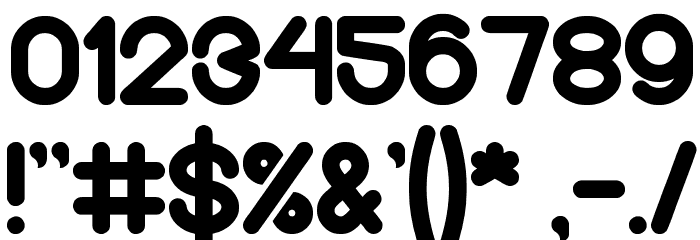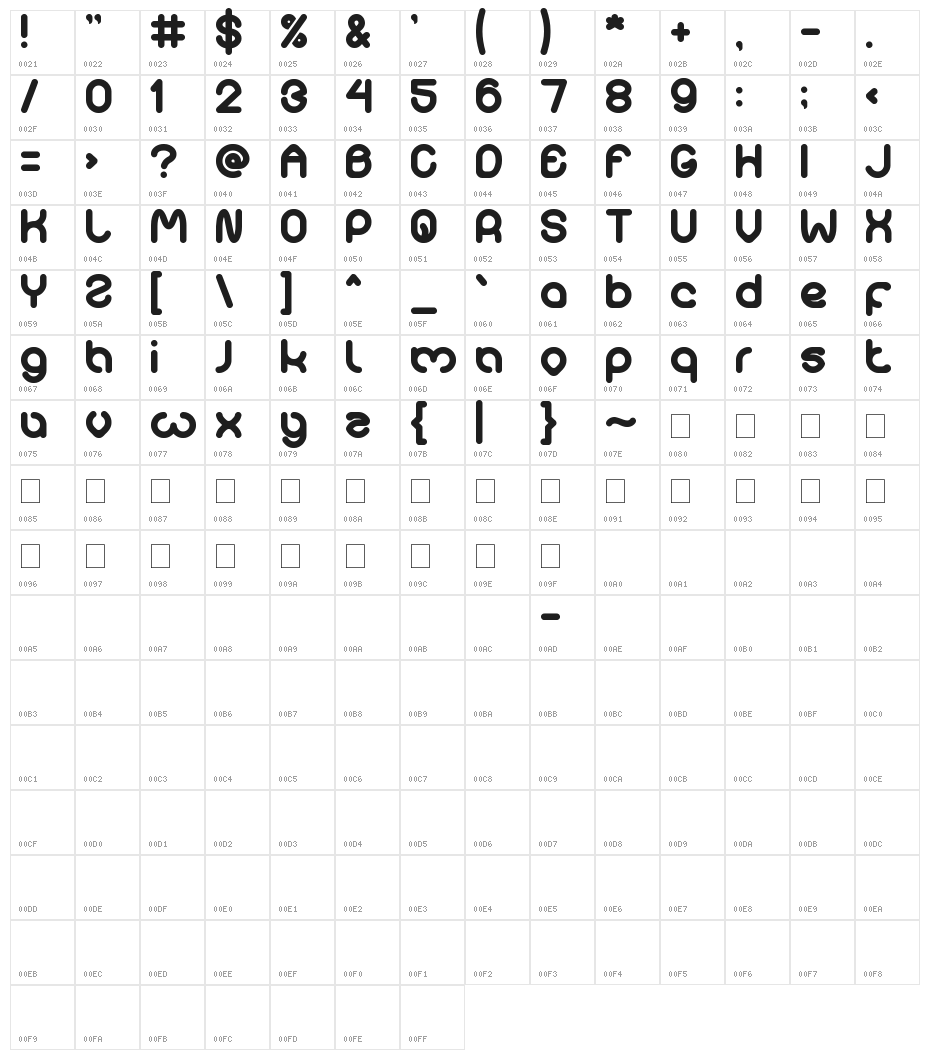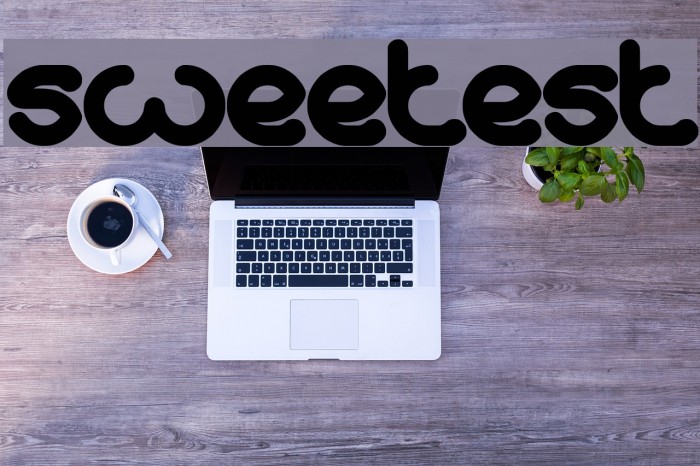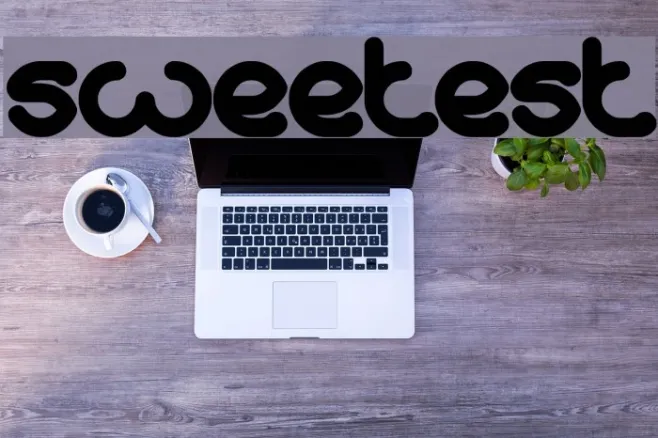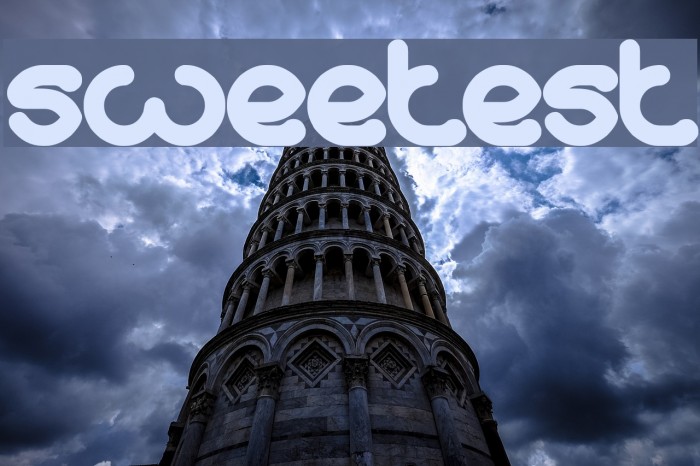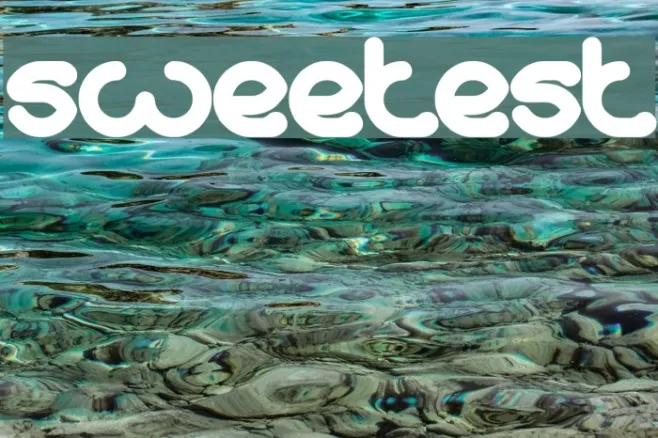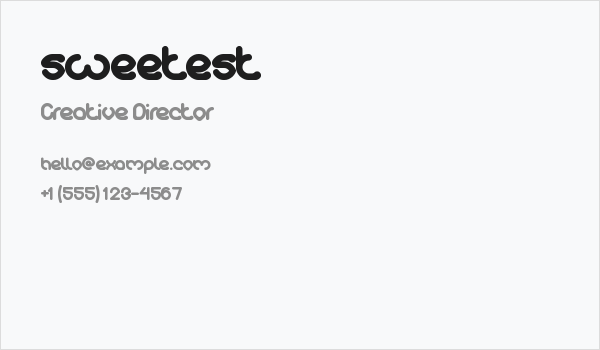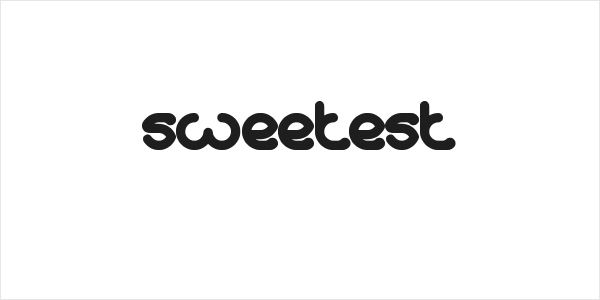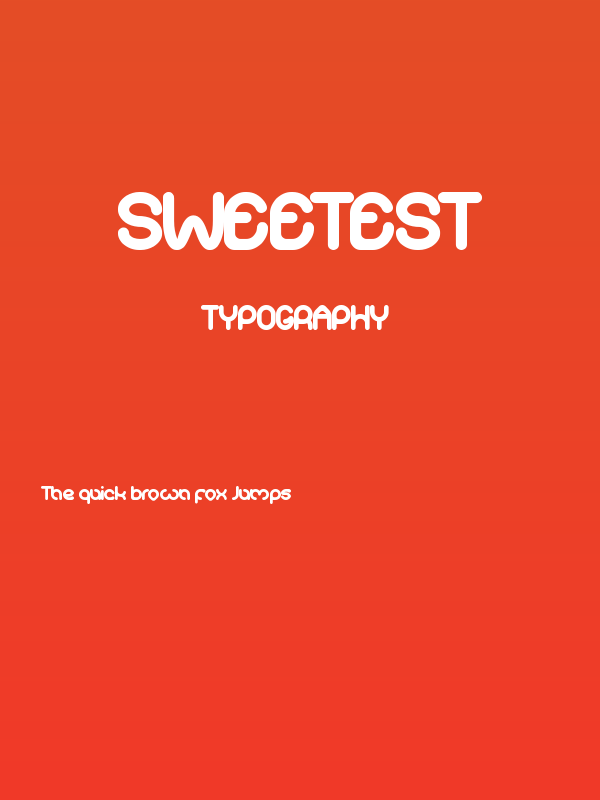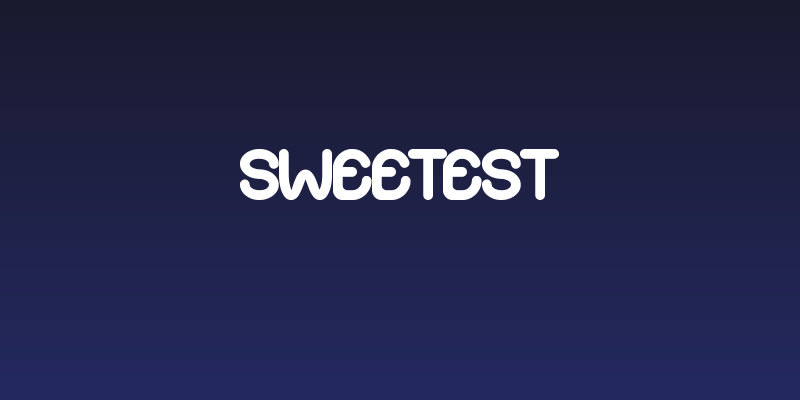
sweetest Font
sweetest Description
This font features a playful and rounded design, characterized by its bold and smooth curves. Each letter is crafted with a consistent thickness, giving it a bubbly and friendly appearance. The uppercase and lowercase letters maintain a uniform style, with rounded edges and a slightly condensed form. Numbers and special characters follow the same aesthetic, ensuring a cohesive look across all text. The font's design is modern and approachable, making it suitable for a variety of creative applications. Its boldness and unique style make it stand out, while its rounded forms add a touch of whimsy.
Overall StyleModern, Playful
Proposed ProjectsIdeal for children's books, playful branding, creative posters, and fun social media graphics.